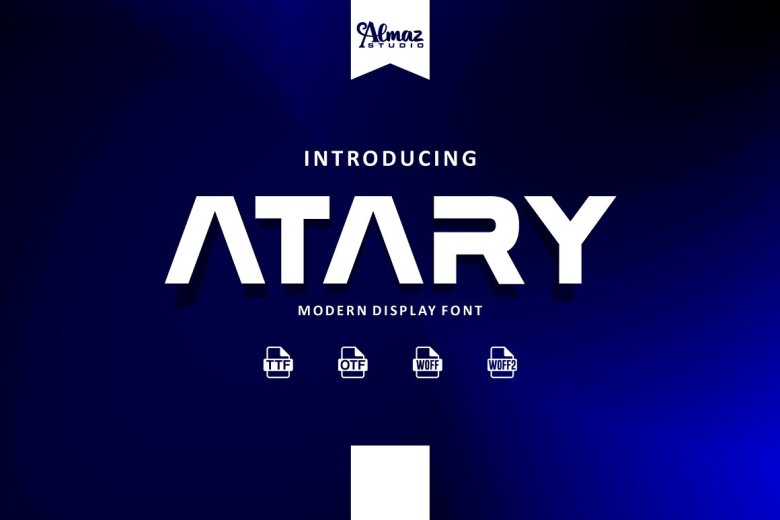
Atary Font
Introducing Atary is a modern and minimalist display font. The mixture of minimal and geometric shapes results in a beautiful modern design. Atary is a clean and modern caps, so there’s a great deal more flexibility there. This sans serif font is impermeable to add modern touch in your Layouts. Perfectly suited for graphic design and any display use. Use in adobe apps to create logos, design, posters, packaging, visual identity. etc or any media you desire.
This is download comes with many alternates and graphic elements to mix and match, for a very sophisticated design. This font software combines the works of design, calligraphy, and computer systems. Atary is a completely clean faced with prominent straight lines and sharp borders. This makes it unparalleled for display layouts, presentations, and anything else you can imagine. It would be best if you tried it out.
Atary Display Font